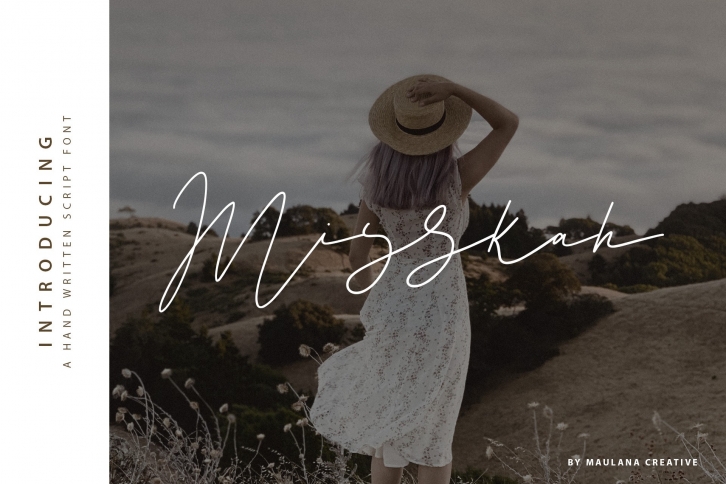
Misskah Script is a trendy and unique font with an authentic style. It was designed by Maulana Creative and it's a great choice for creative people who need such a font. It was released on September 9, 2019 and the file size is 1.17 MB. Misskah Script will add an organic vibe to any design idea!